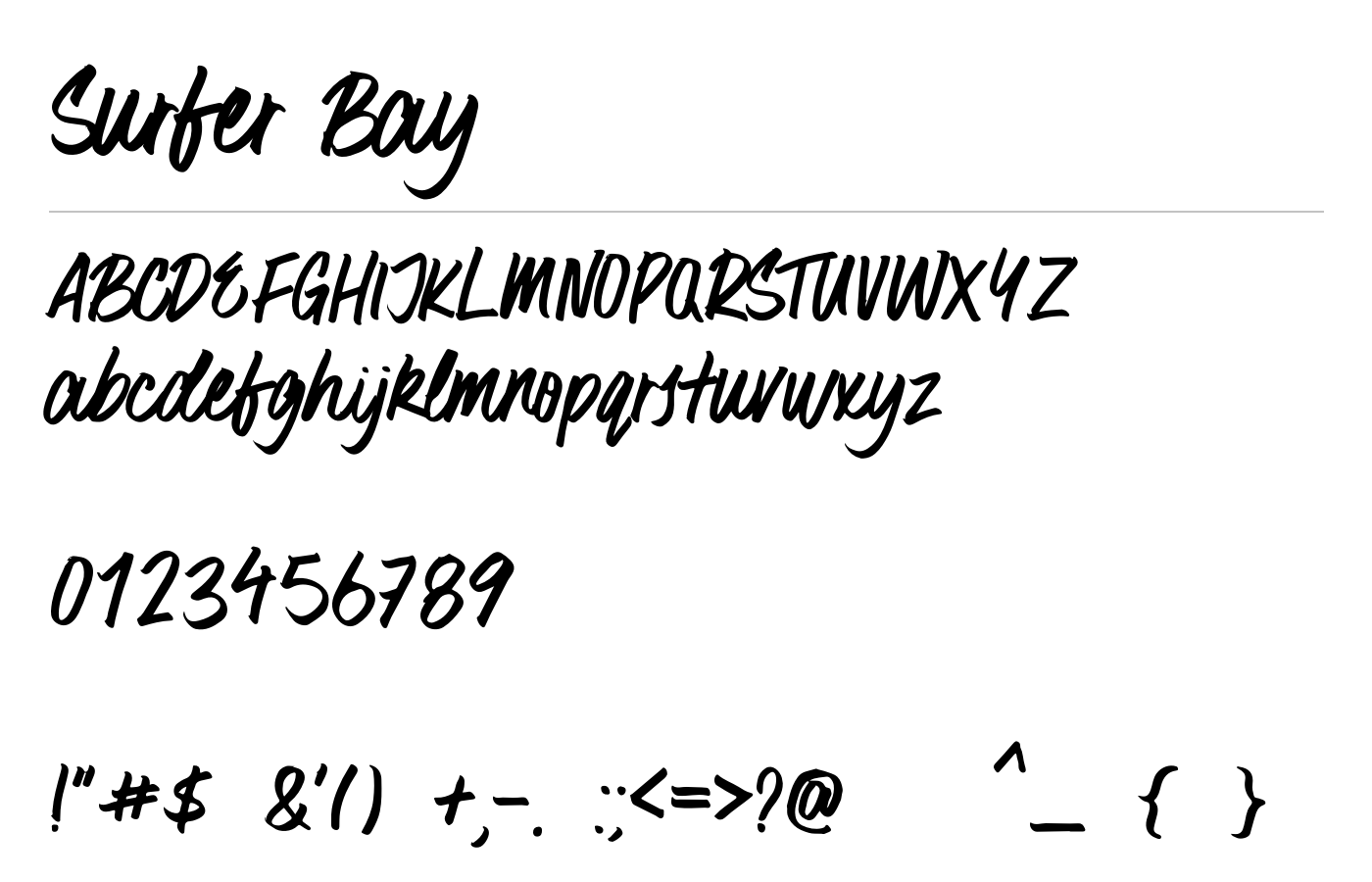
Surfer Bay Brush Font is a lively, casual script typeface with a natural brushstroke texture that gives it an energetic and handcrafted feel. Its moderately bold weight and slightly condensed letterforms make it perfect for capturing a free-spirited, coastal vibe that works beautifully in branding, packaging, and headlines for lifestyle and outdoor-oriented projects. This font’s playful yet readable style brings an authentic, personal touch to designs seeking a relaxed and approachable personality.
Surfer Bay Brush Font
About Surfer Bay Brush Font
| Designer | Zaffar Ansari |